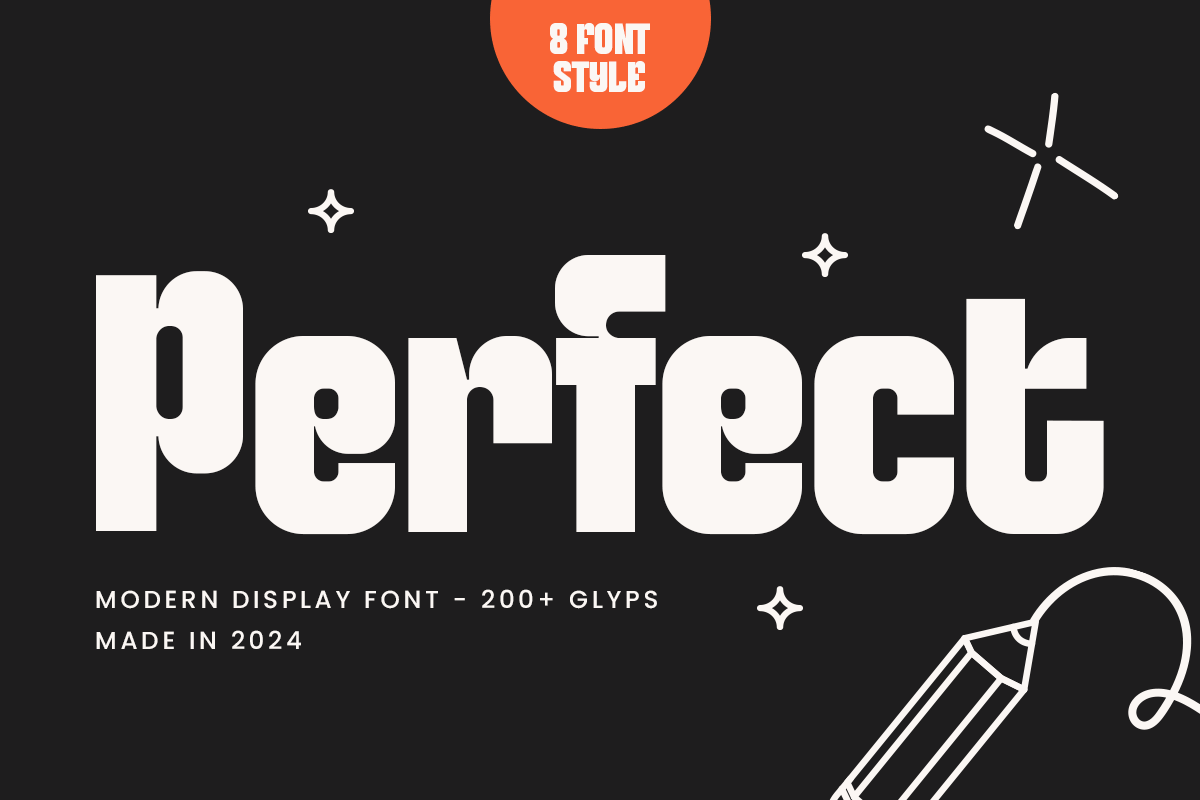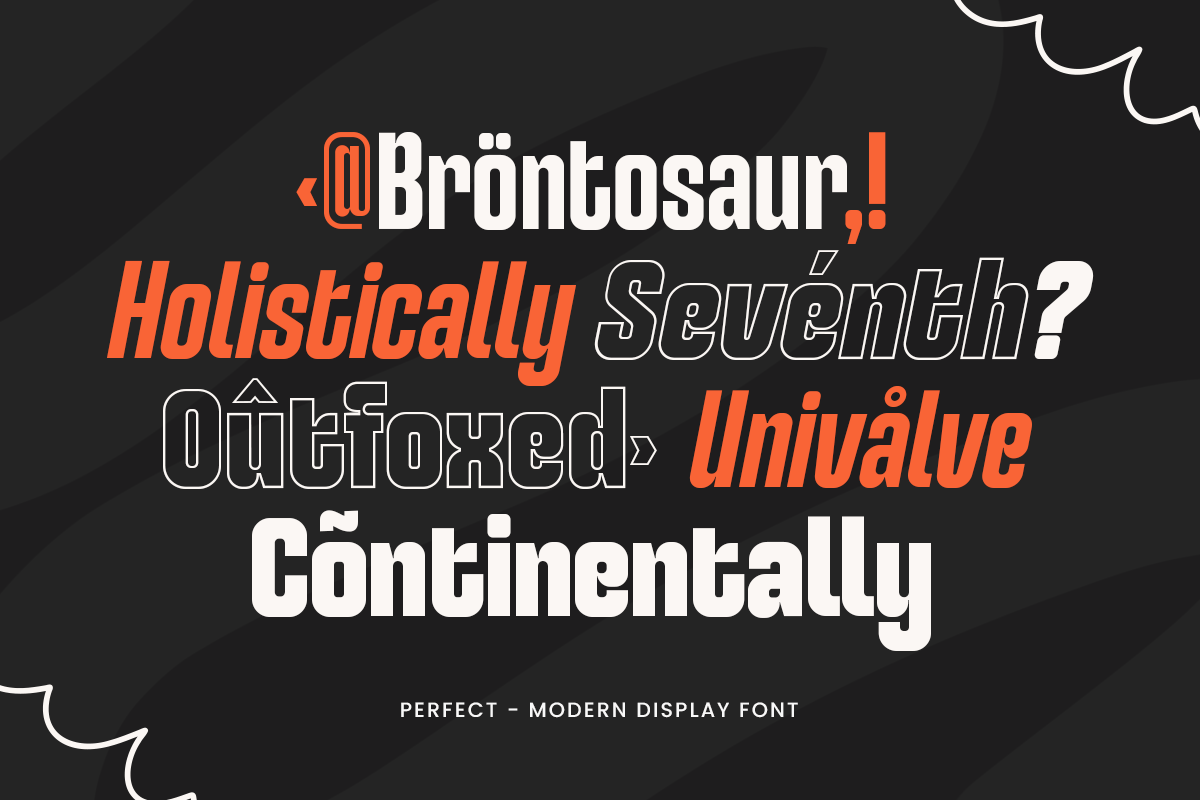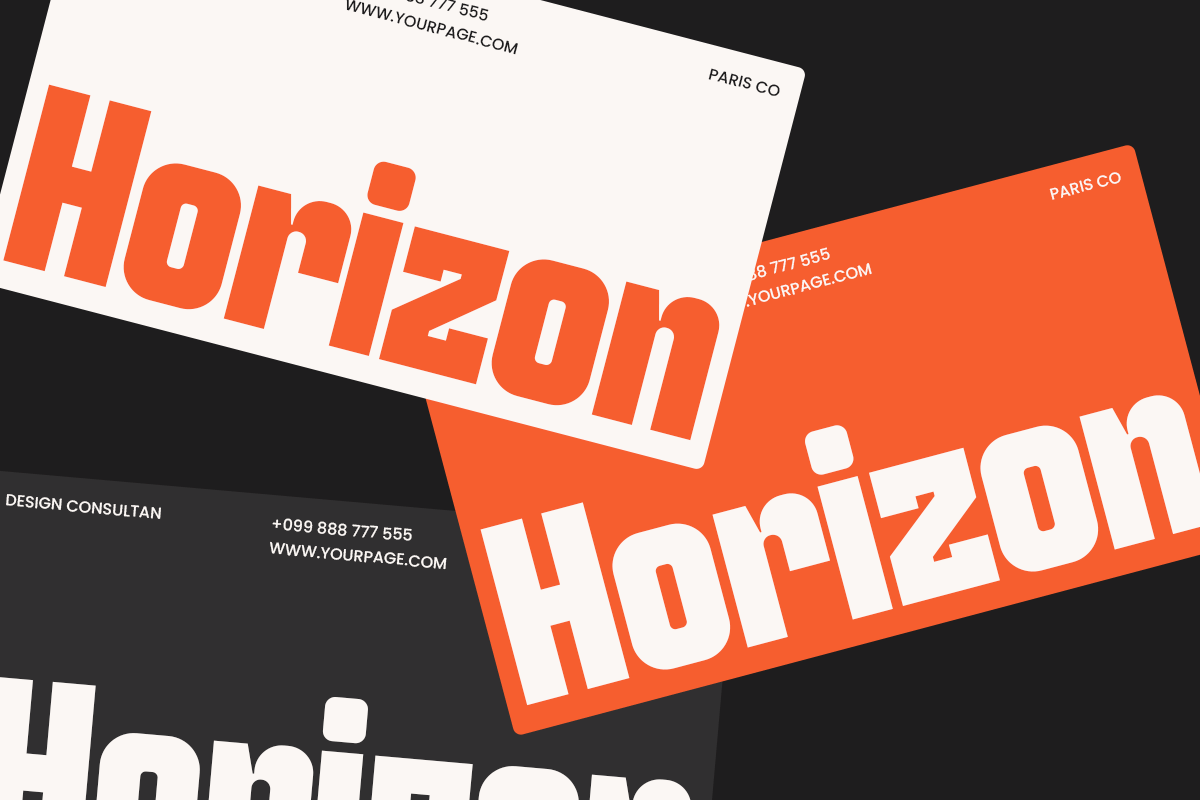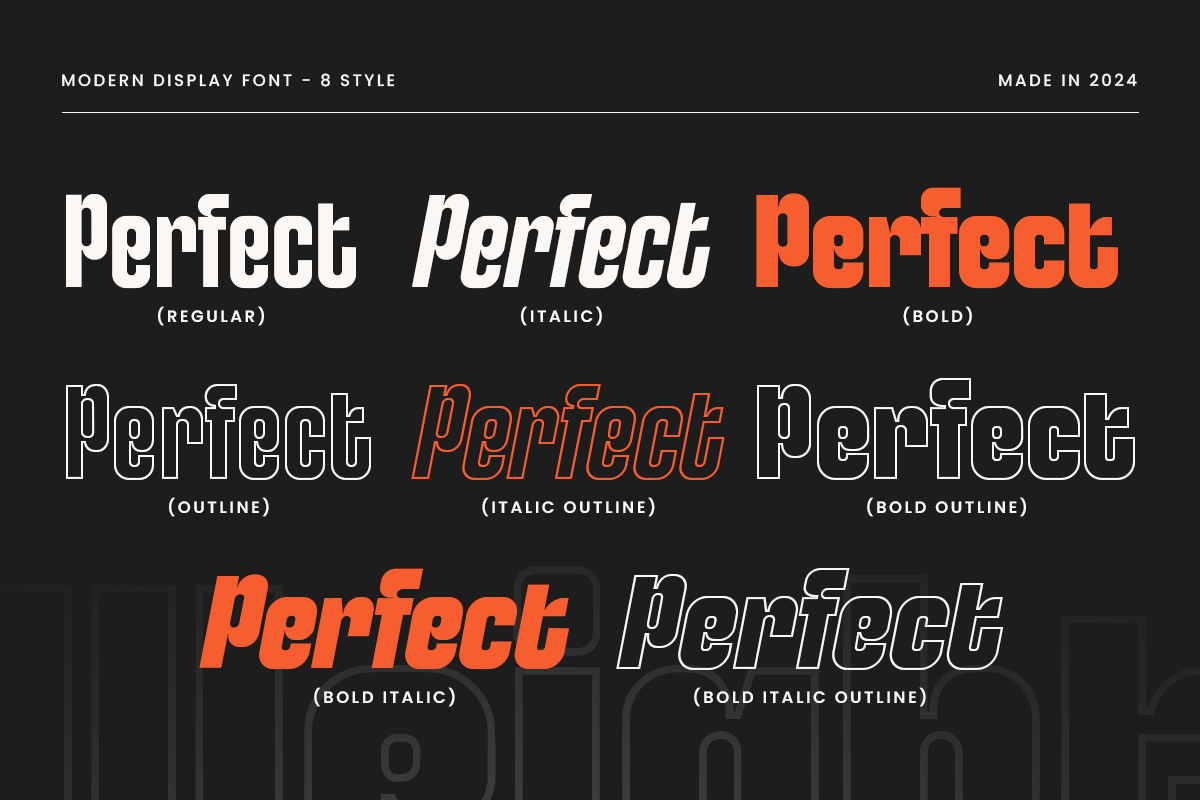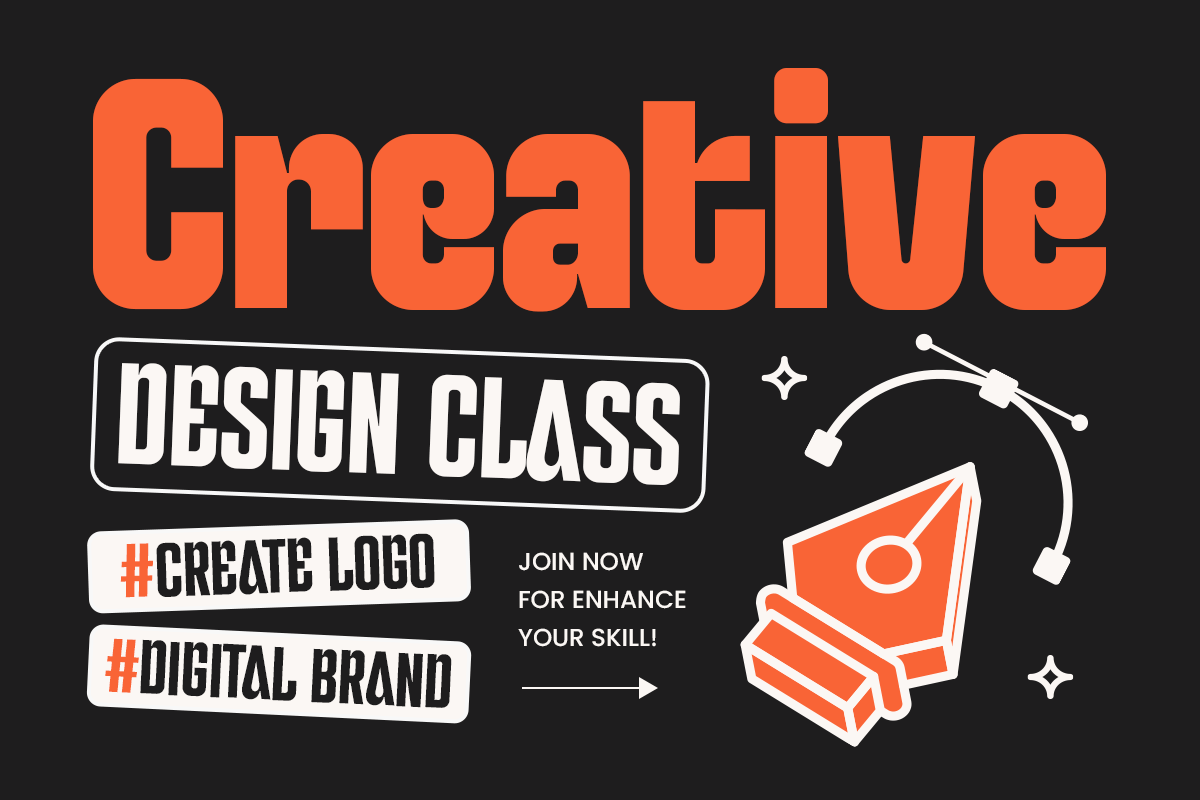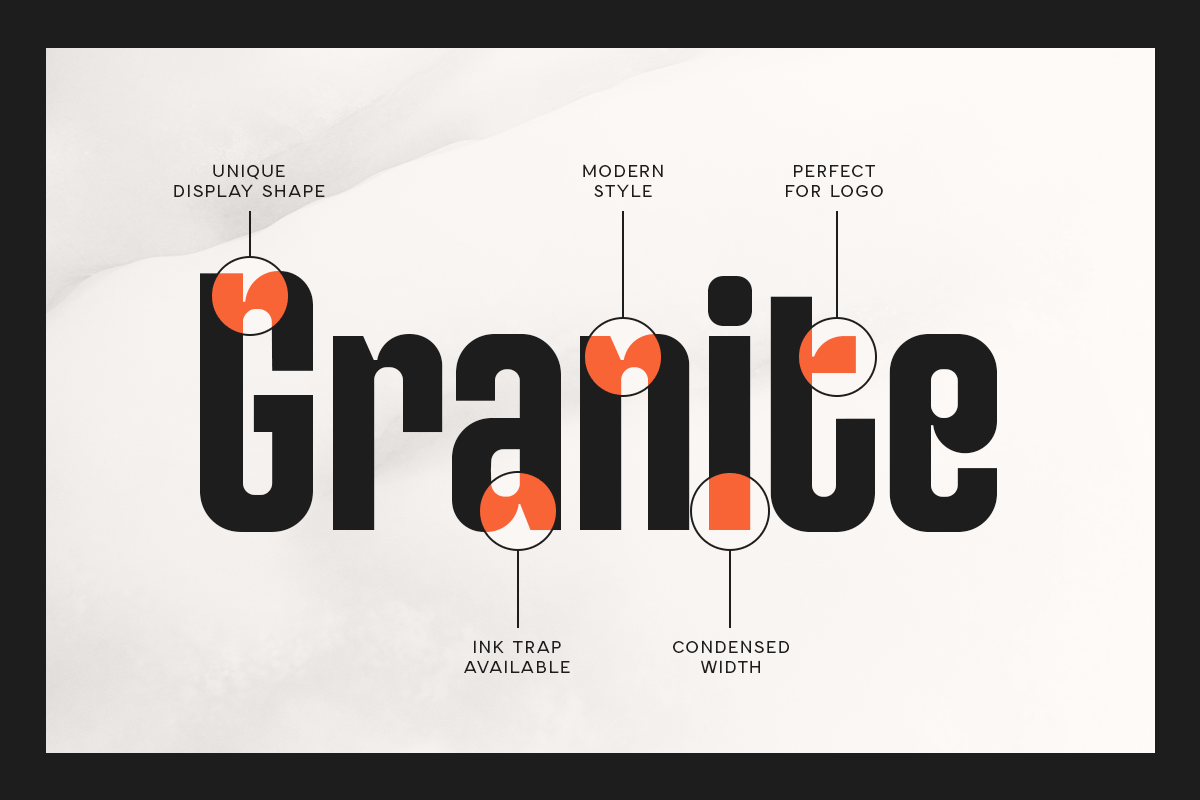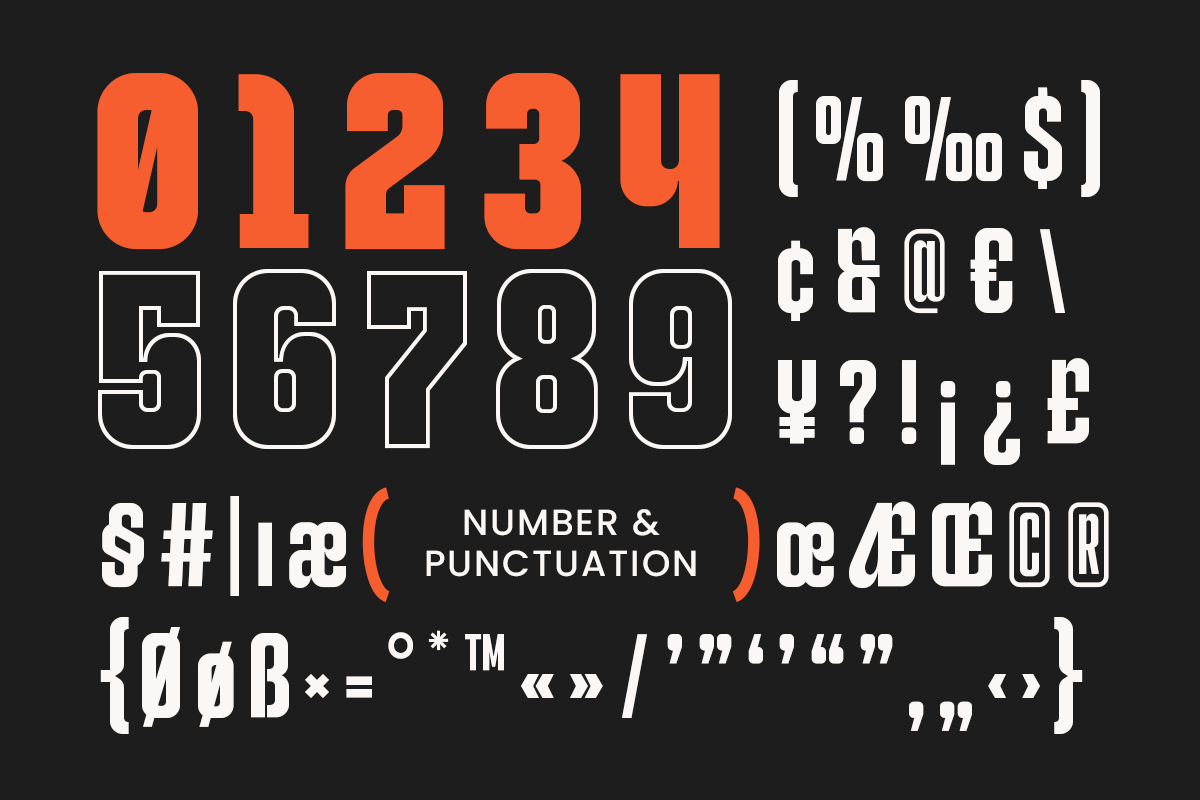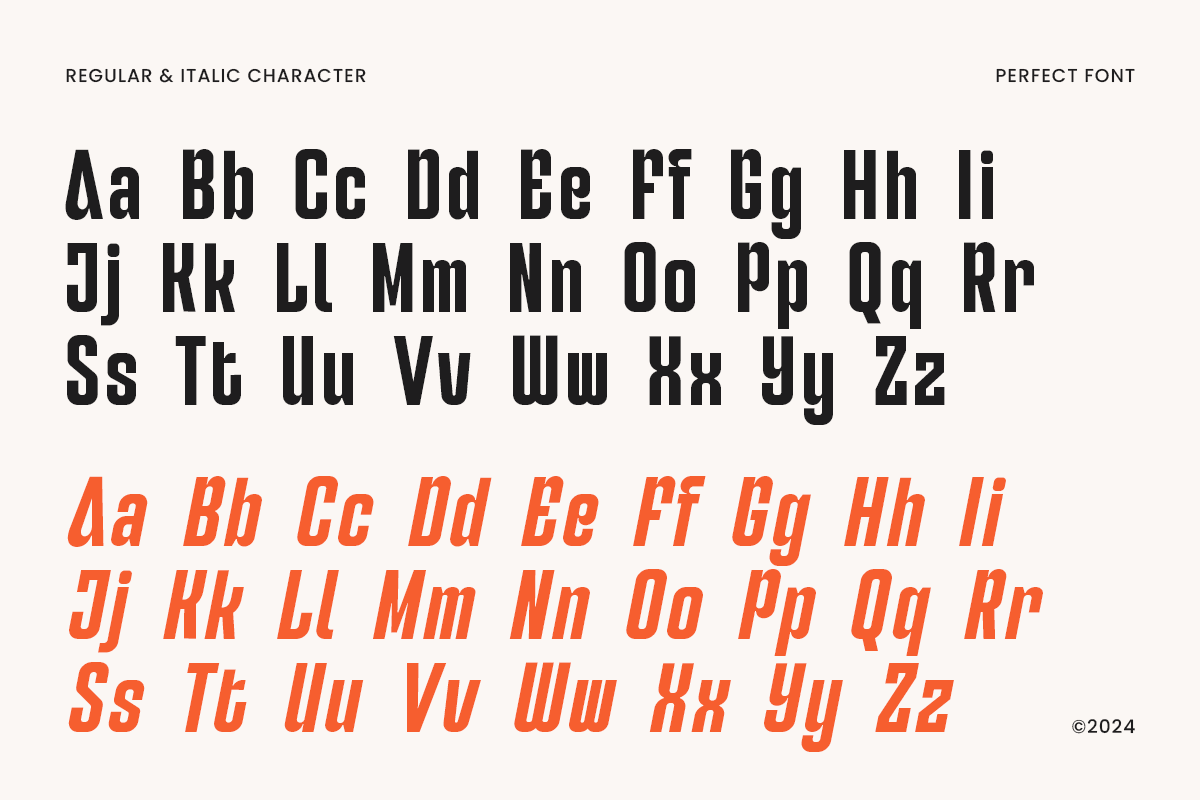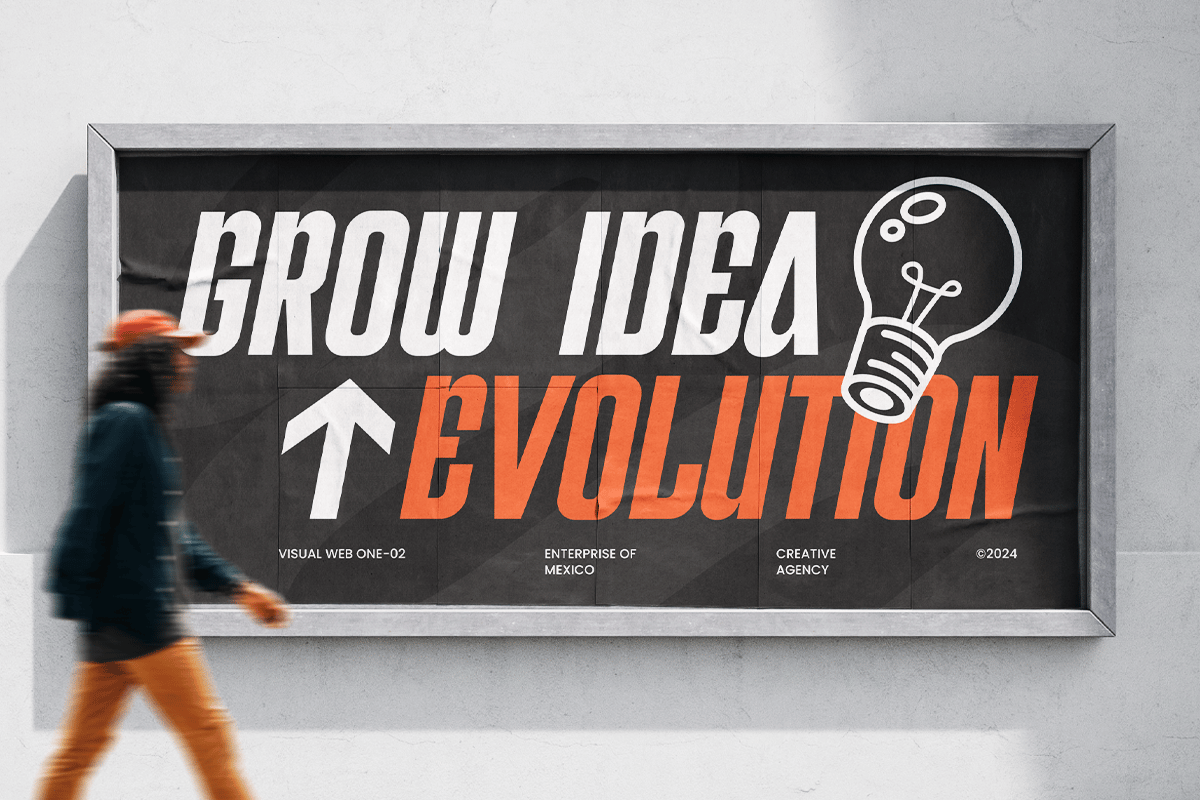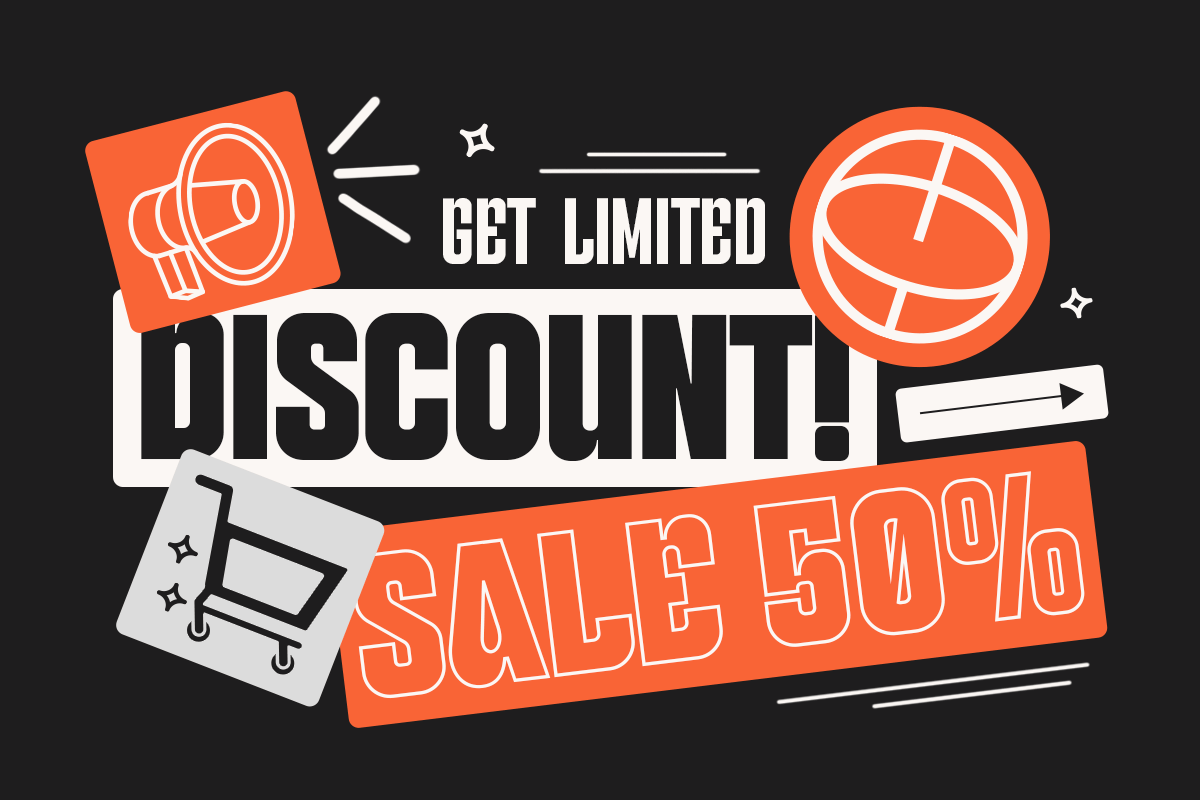
Perfect – Modern Display Font Family
Perfect is a modern display font family crafted with sleek, clean lines to make your designs pop. Its bold and sophisticated style makes it ideal for branding, headlines, and digital projects where clarity and impact are key. Whether you’re working on logos, posters, or websites, Perfect delivers an unmistakable modern flair.
This font strikes the right balance between simplicity and elegance, making it versatile for both creative and corporate projects. Its contemporary feel pairs well with minimalist designs, ensuring a strong visual presence without overwhelming your composition. Perfect is a great choice for designers looking to add a modern touch to their work, combining sleek aesthetics with functionality to captivate any audience.
Perfect Modern Display Font Features:
- Unique Characters Ready
Ready with 8 Font Styles:
- Bold
- Italic
- Bold Italic
- Regular Outline
- Bold Outline
- Italic Outline
- Bold Italic Outline